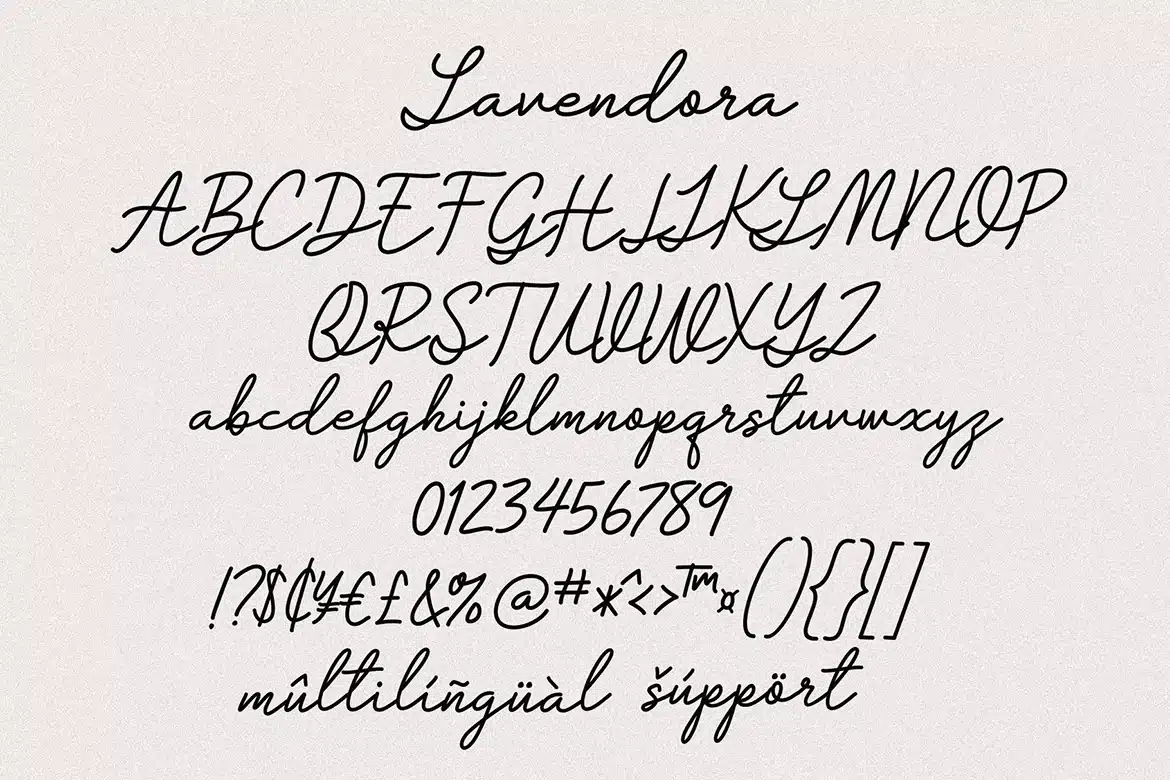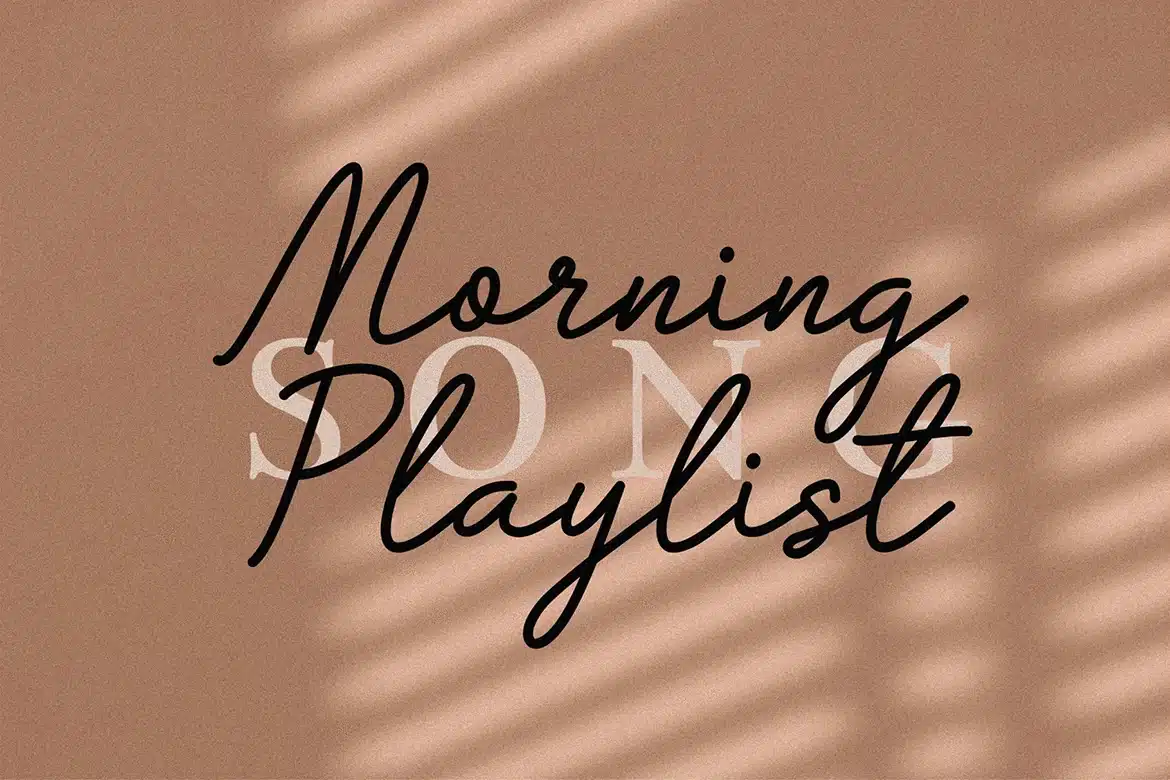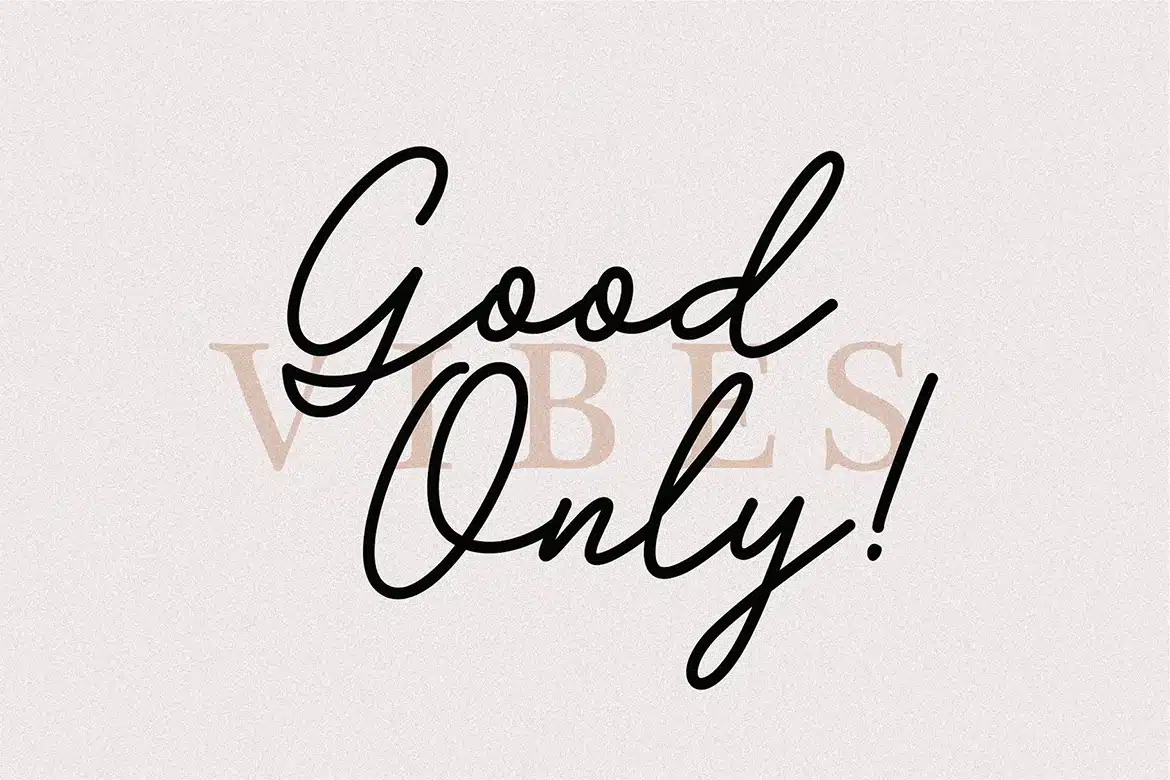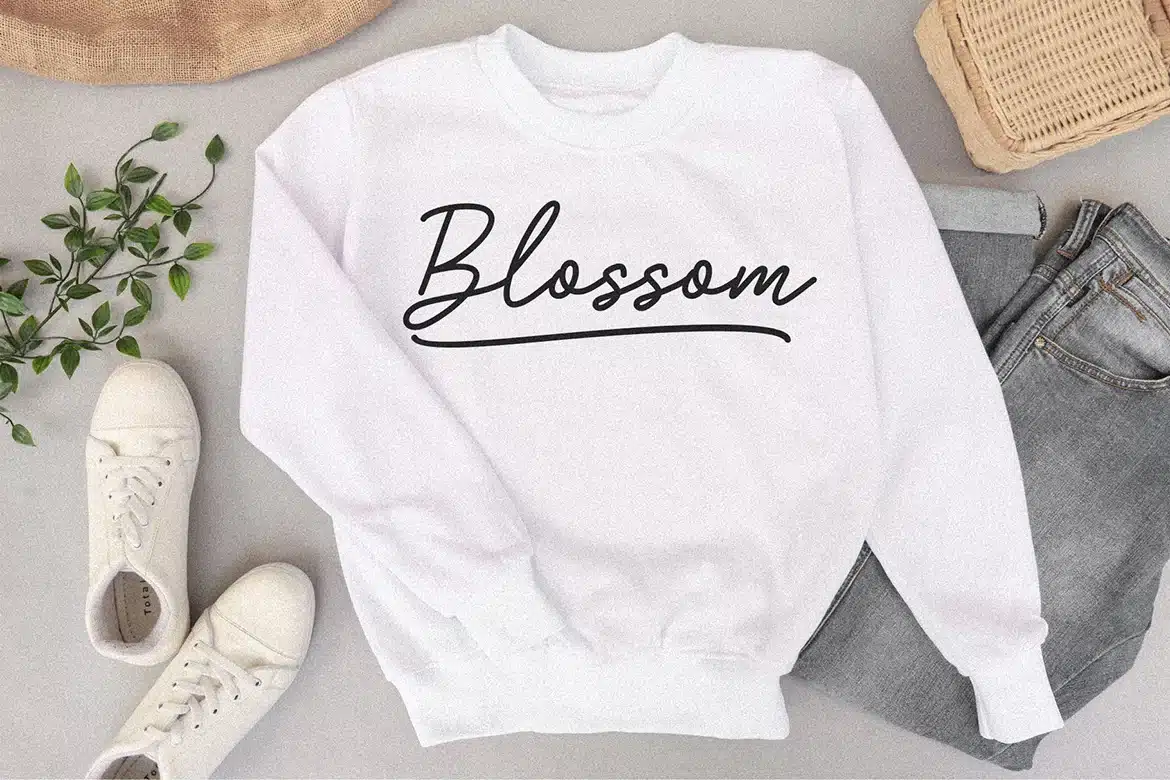
Lavendora Font
Lavendora is a new modern and fresh script with a handwritten style that makes this font looks elegant, natural and stylish.
This stunning Monoline script font perfect for any awesome projects that needs a handwritten touch.
Lavendora is great for wedding invitation card designs, logotypes, business card designs, advertisements, product designs, stationery, product packaging, quotes and so on.